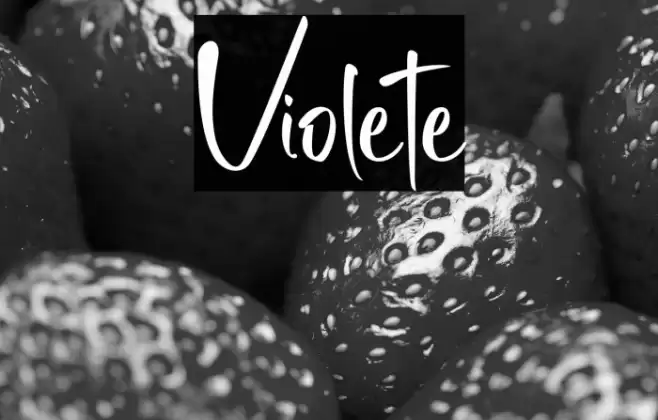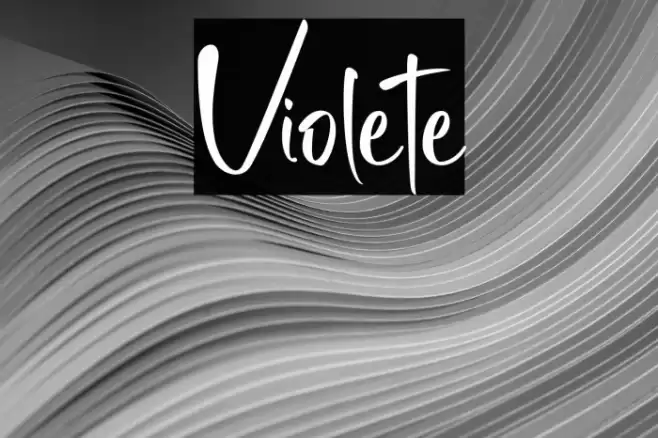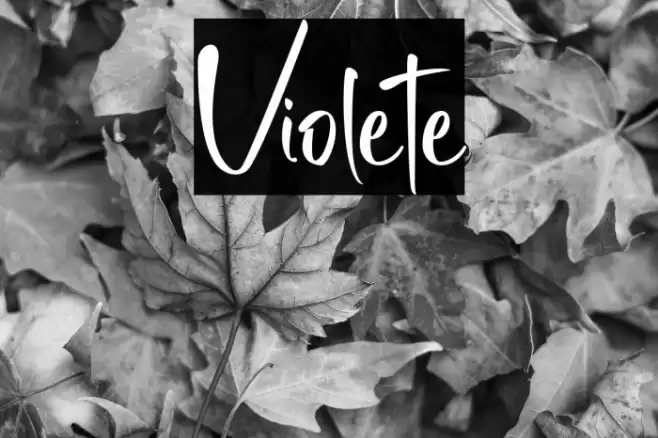
Violete Font
Violete Description
This font features a dynamic and expressive handwritten style, characterized by its fluid strokes and varying line thickness. The uppercase letters exhibit a bold and confident appearance, while the lowercase letters maintain a playful and casual vibe. The numerals and special characters are crafted with the same energetic flair, making them stand out. The overall design is reminiscent of modern calligraphy, blending elegance with a touch of spontaneity. This font is perfect for projects that require a personal and artistic touch.
A dynamic and expressive handwritten font with fluid strokes and varying thickness from Regular fonts.
- Font: Violete
- Proposed Projects: Ideal for greeting cards, invitations, branding, social media graphics, and artistic projects.
- Use Case: Logos, Headlines, Artistic projects